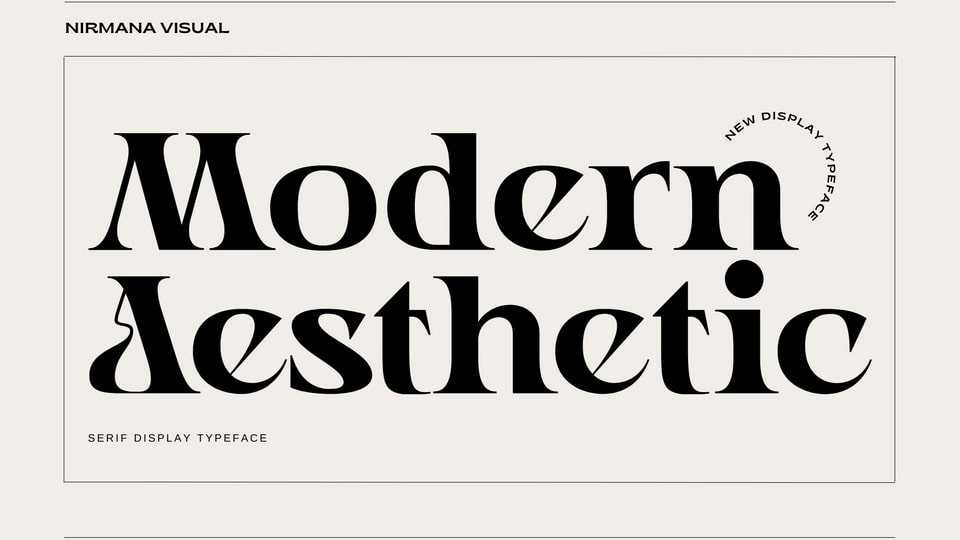
Download Modern Aesthetic font, a serif typeface inspired by Renaissance Era. It offers beautiful typographic harmony for a diversity of design projects, including logos and branding, social media posts, advertisements and product designs.